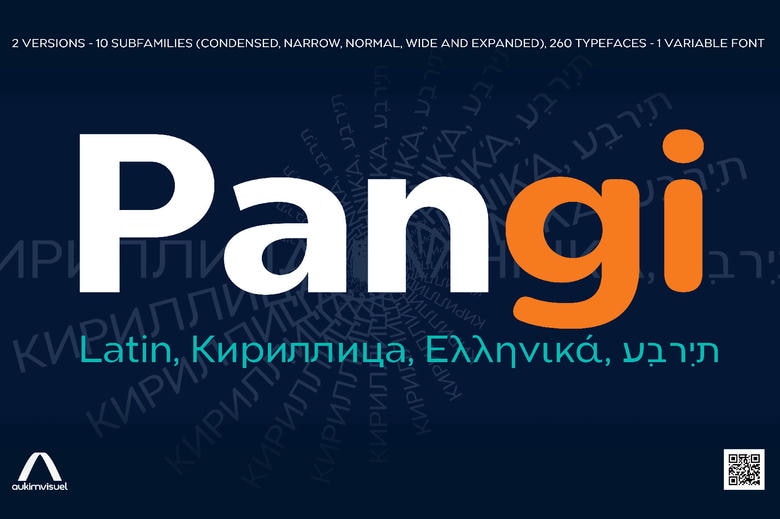
Pangi Font Family: A Typographic Masterpiece of Geometry. Pangi is a contemporary sans serif typeface created on the principles of geometric purity, allowing a variety of applications and functions. The combination of minimalism and flexibility is anchored in circles, squares, triangles, and lines, which makes it an invaluable resource in graphic design and digital typography. Having such a wide range of applications, Pangi guarantees both functionality and visual appeal.
Pangi Font Key Features:
Two Versions- It comes in basic and rounded, with 10 subfamilies that are both condensed and expanded, with 260 fonts and variable font. It has 13 weights and each has true italics.
OpenType Excellence – Provides more than 24 OpenType features, including contextual ligatures and stylistic alternates, making typographic opportunities richer. Global Language Support – Can support many languages with Latin alphabet, Cyrillic, Hebrew, Greek and so on.
Pangi Font Applications:
Graphic Design Ideal: Modern designs such as posters, brochures and logos. Web and UI – Guarantees the understanding and readability of websites and applications. Publications- These can be appropriate to both digital and print media, including books and magazines. Signage- Good when dealing with signs, maps, and guides.
Pangi font family comes out of the idea that, geometric simplicity can be mixed with linguistic and cultural complexity. It is a universal font option and it provides a sophisticated appearance as well as promotes creative and progressive design goals.